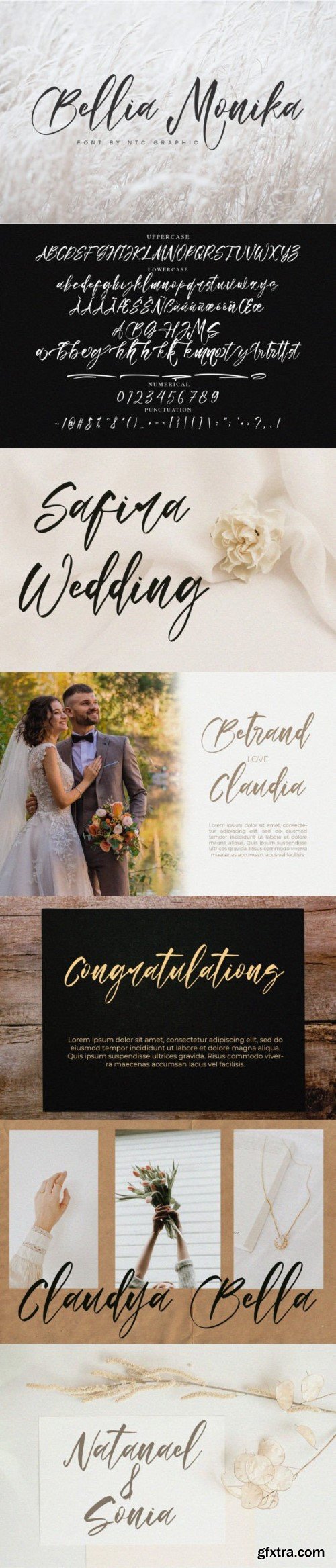
Bellia Monika 字体
Bellia Monika is a captivating script font exuding elegance and sophistication. Its flowing strokes and graceful curves evoke a sense of timeless beauty. Perfect for invitations, branding, and upscale designs, Bellia Monika adds a touch of refinement to any project, making it truly memorable and enchanting.